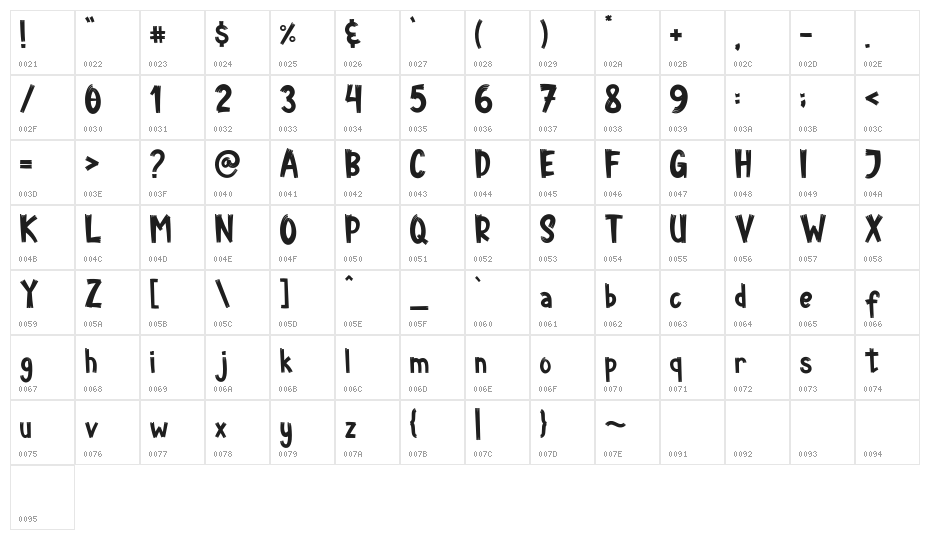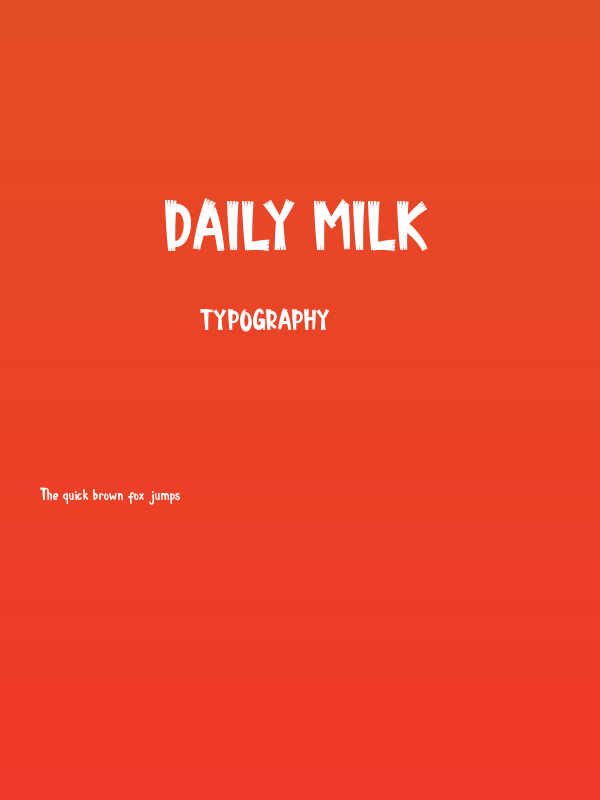
Daily Milk Font
| Gesamtstil | Playful, Energetic, Hand-drawn |
| Anwendungsfall | Headlines, Posters, Branding |
| Vorgeschlagene Projekte | Perfect for children's books, playful branding, posters, and creative social media graphics. |